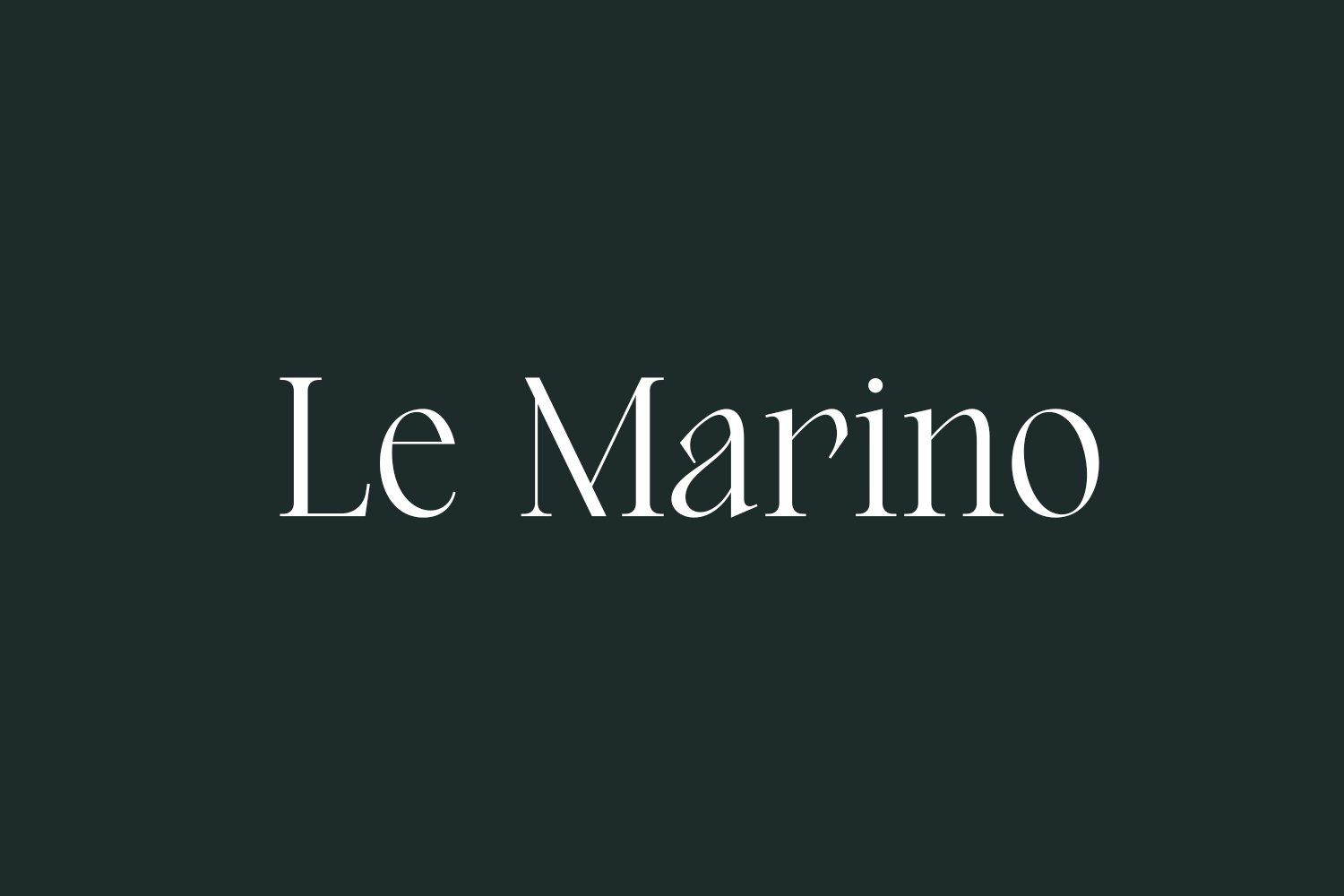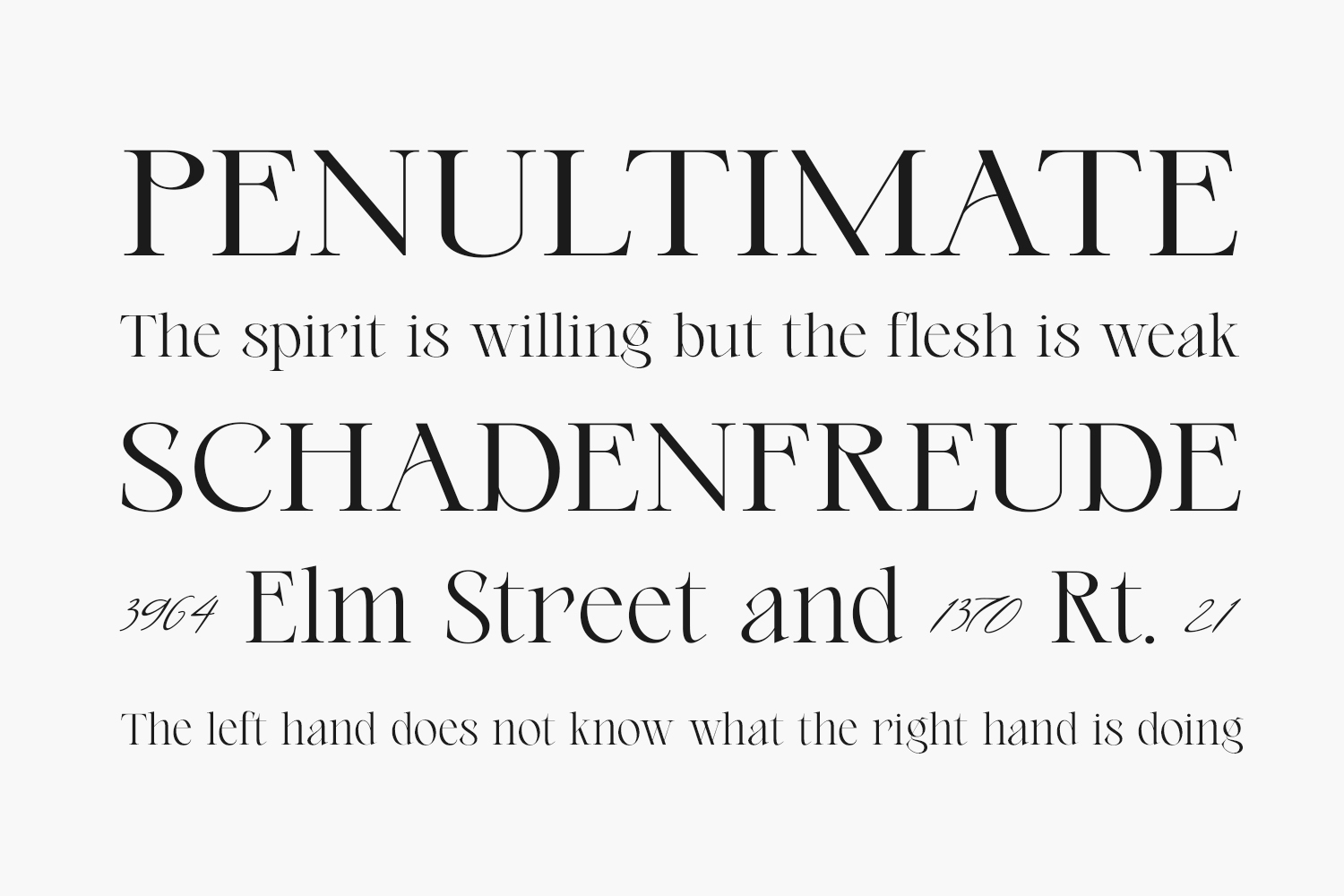
Le Marino Free Font Family is a typeface that embodies sophistication and elegance with a touch of modernity. Its refined serifs and clean lines make it a versatile font for both traditional and contemporary design projects. The letters are expertly crafted, with just the right amount of contrast between thick and thin strokes, creating a sense of balance and harmony. The overall effect is a font that is both classic and fresh, making it perfect for anything from book covers to branding materials. With Serif Le Marino Free Font, you can convey a sense of timeless style and effortless sophistication in your designs.
Designed by Letteralle Studios